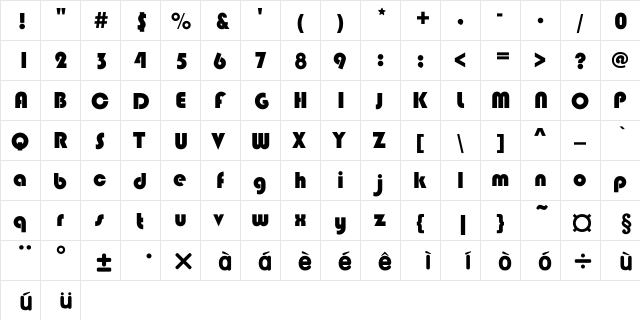
STHupo Regular
Design Context for STHupo Typeface
STHupo offers clean, dependable letterforms without strong stylistic allegiance, making it a practical choice for designers who need flexibility.
Pro Tip: Pair STHupo with a font of contrasting weight or personality to build a more expressive typographic hierarchy.